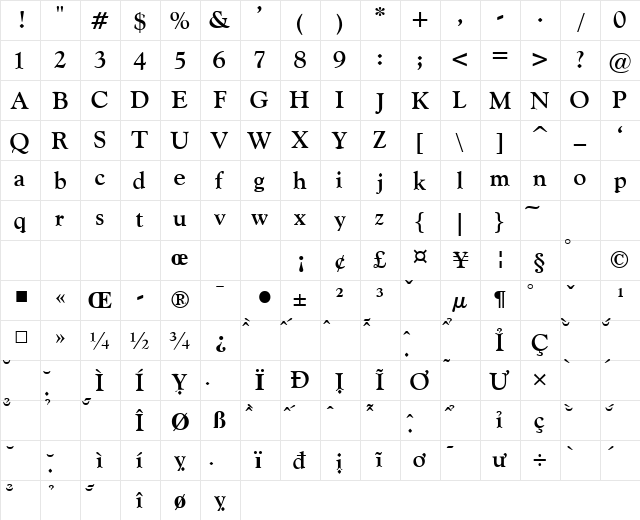
VNI-Goudy Bold
Design Context for VNI-Goudy Typeface
VNI-Goudy is a composed and adaptable typeface that performs quietly and consistently across a wide range of design contexts. The heavy weight commands attention and anchors typographic hierarchies.